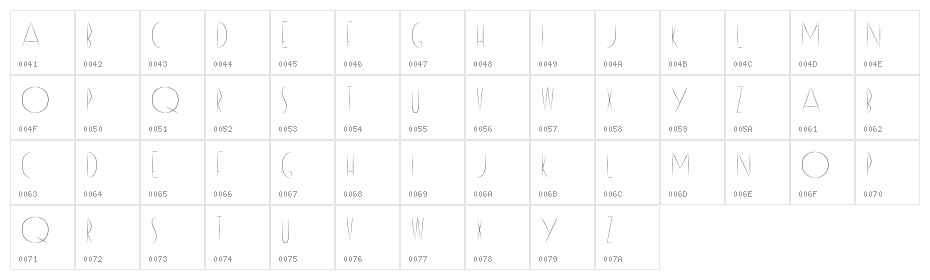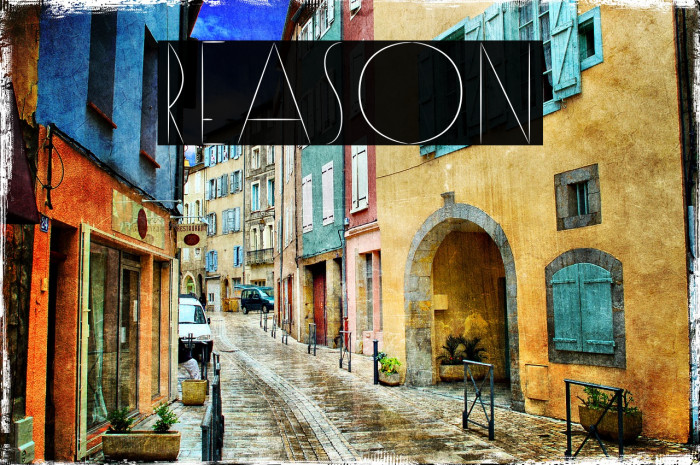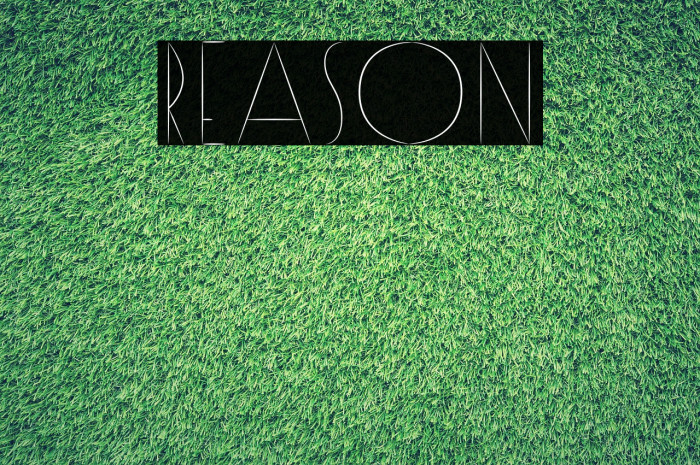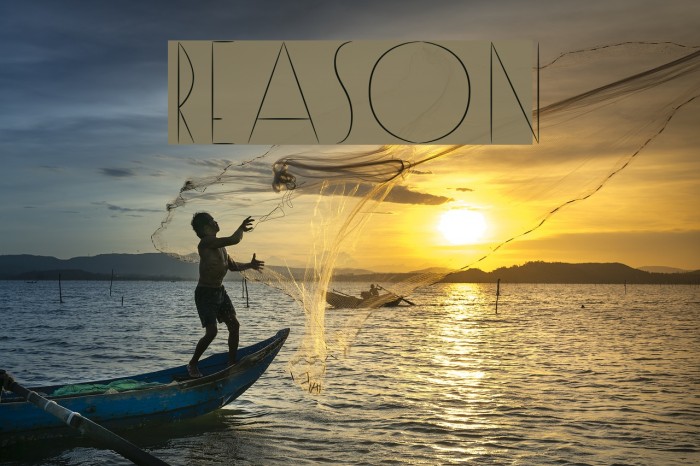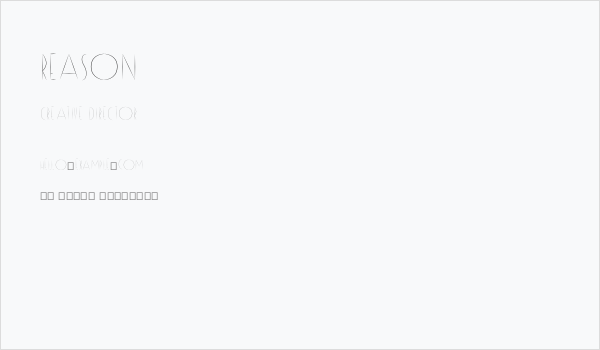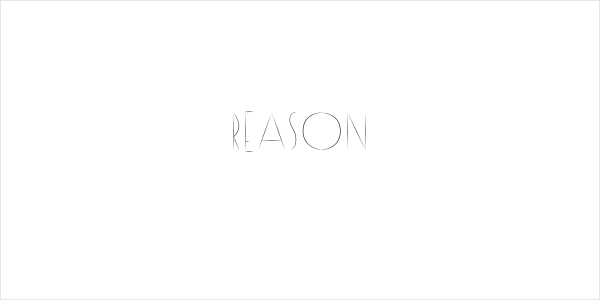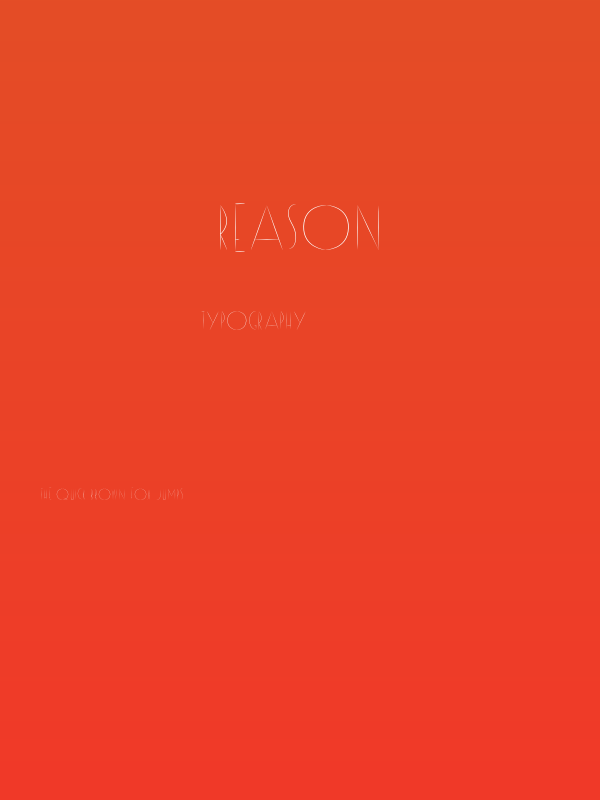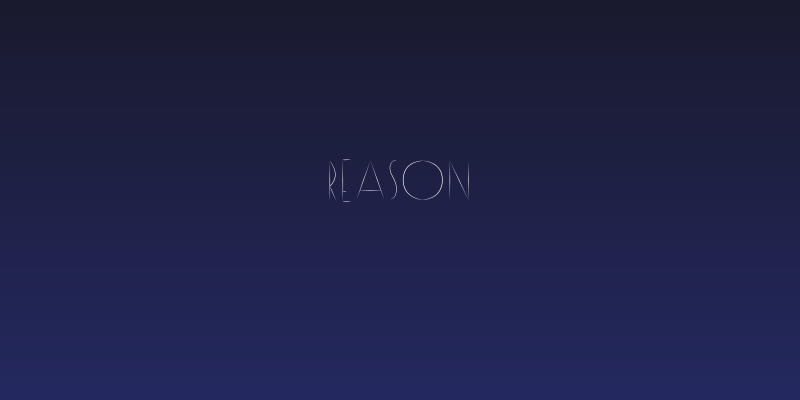
Reason Font
Reason Description
This font features an elegant and elongated design with thin, sharp lines that give it a sophisticated and modern appearance. The uppercase letters are tall and narrow, with a distinct geometric influence that adds a touch of Art Deco style. The absence of lowercase letters and numbers suggests a focus on decorative use rather than functional text. The overall aesthetic is sleek and refined, making it suitable for high-end branding or editorial design. The characters are evenly spaced, contributing to a clean and orderly look.
| Proposed Projects | Ideal for luxury branding, editorial headlines, and decorative purposes. |